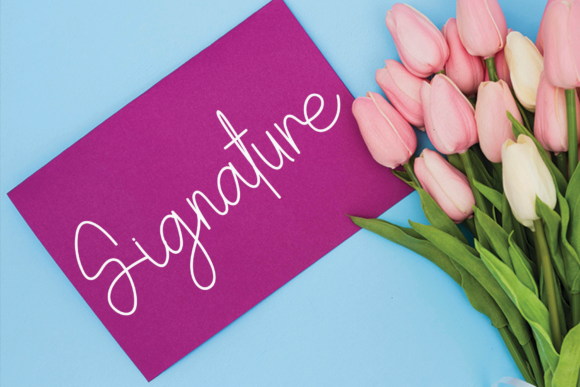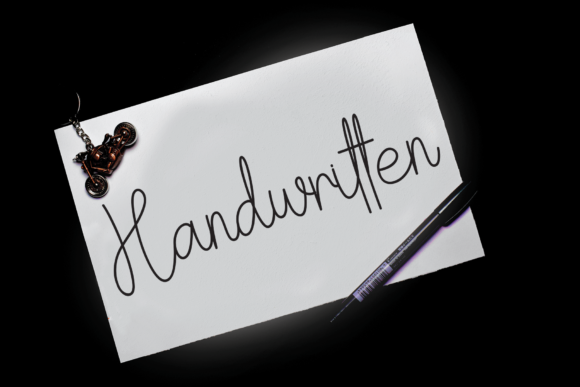
Outdoor Font
db-ku.com - Script & Handwritten -- Outdoor is a beautiful and flowing handwritten font. Use it for wall hangings, wedding invitations, social media post logos,